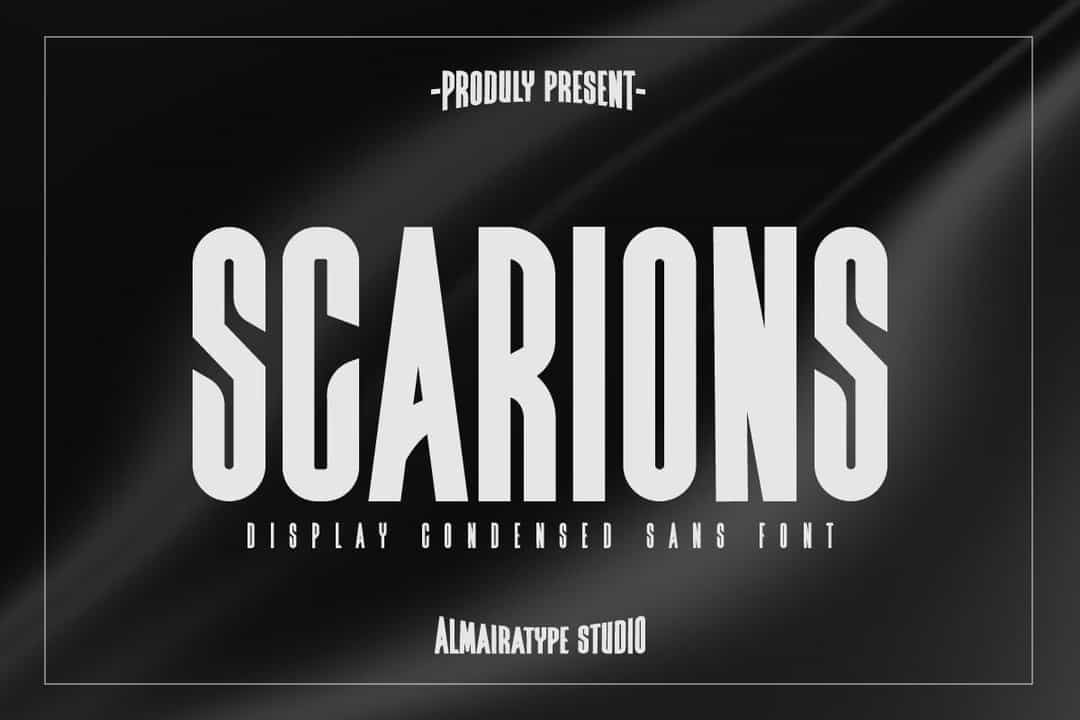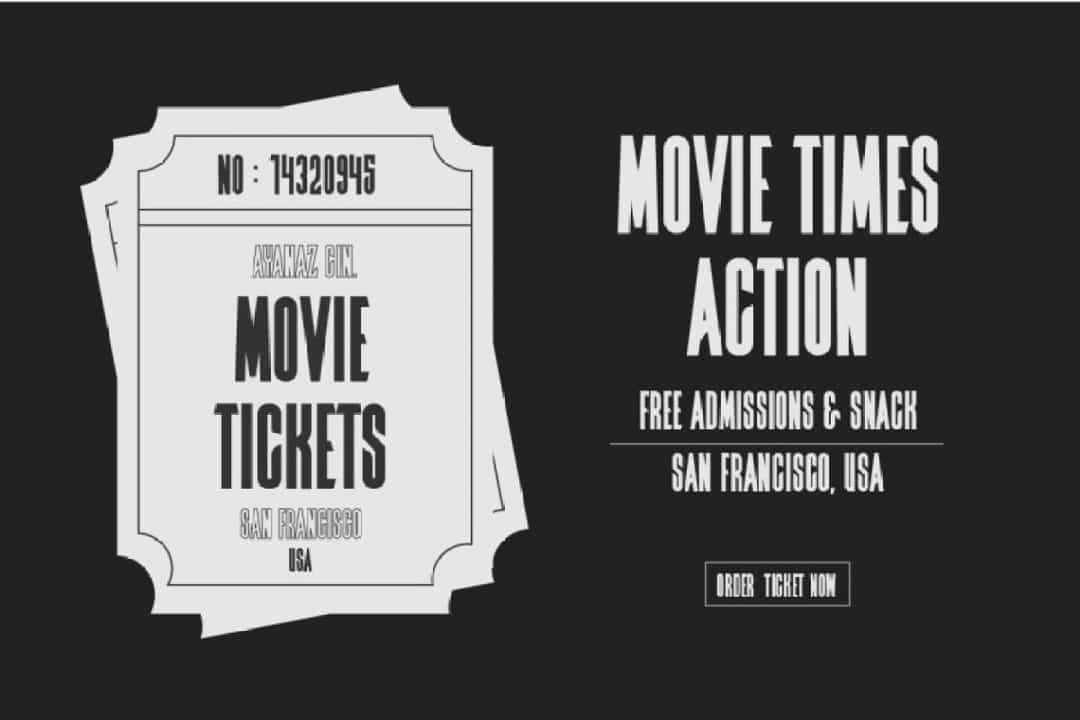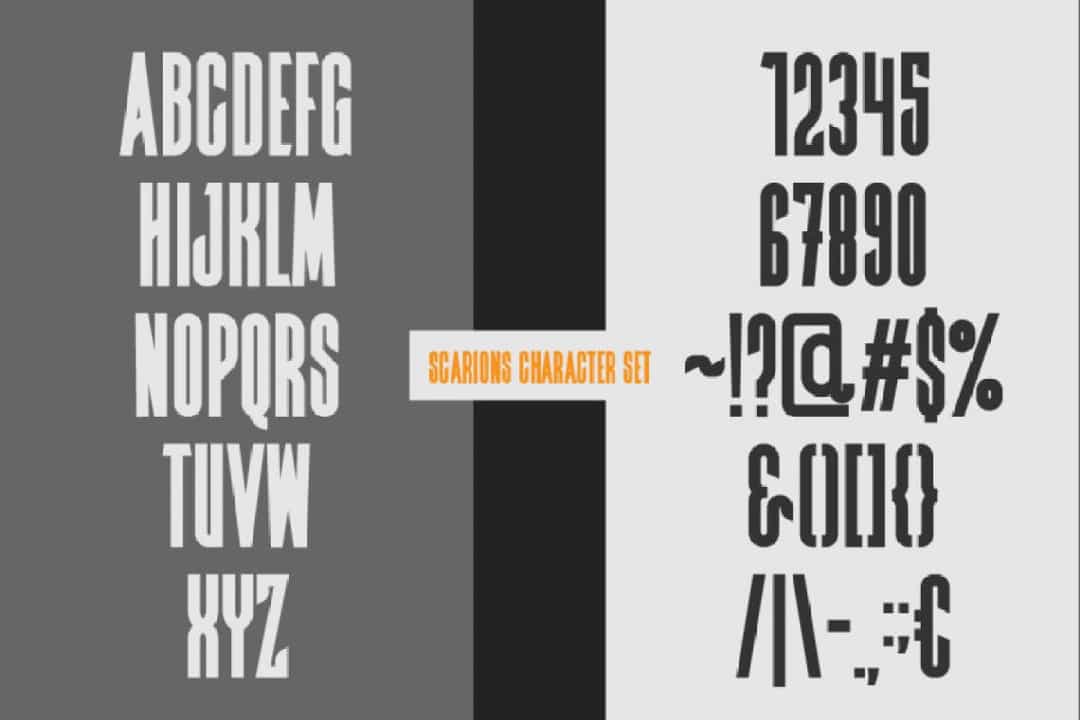
Scarions is an innovative typeface that perfectly captures modern style and versatility. Featuring clean edges and crisp lines that exude style, Scarions’ sleek design adds class and contemporary chic to web branding, design or editorial projects – making Scarions the ideal option for designers seeking an elegant and modern aesthetic.